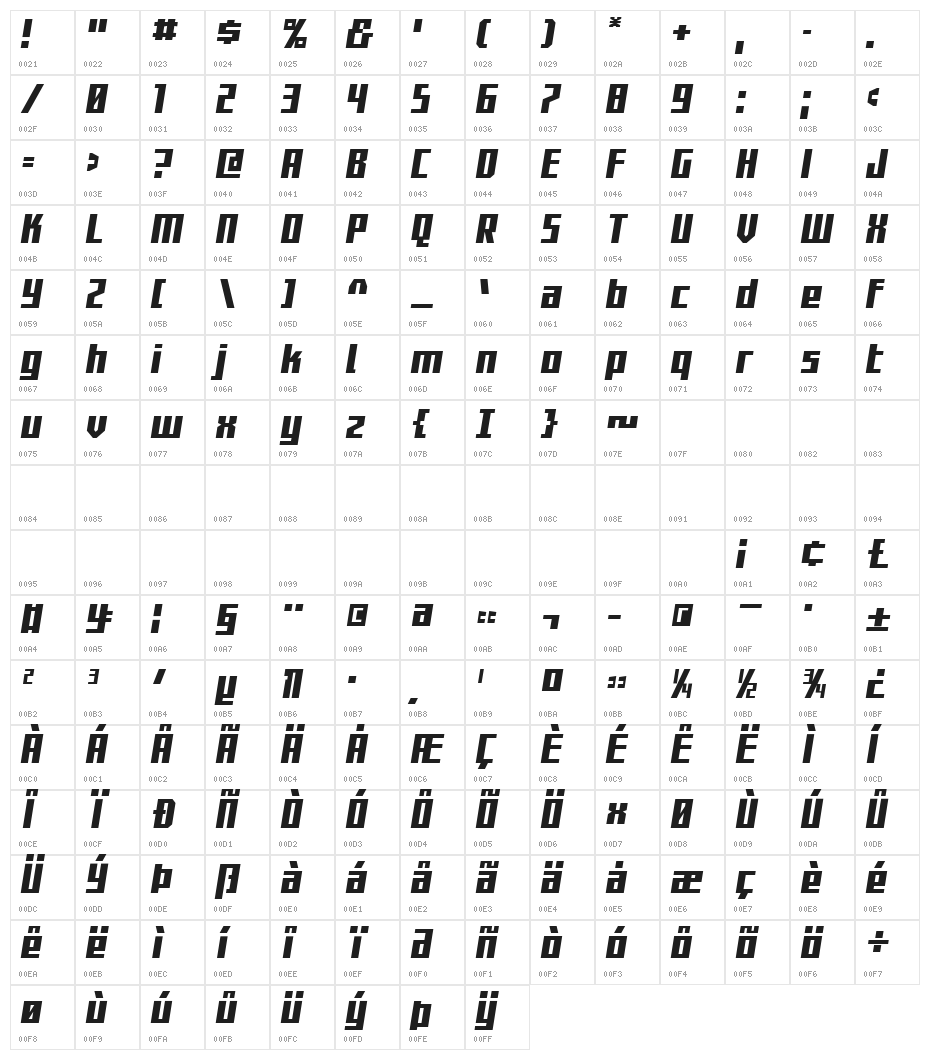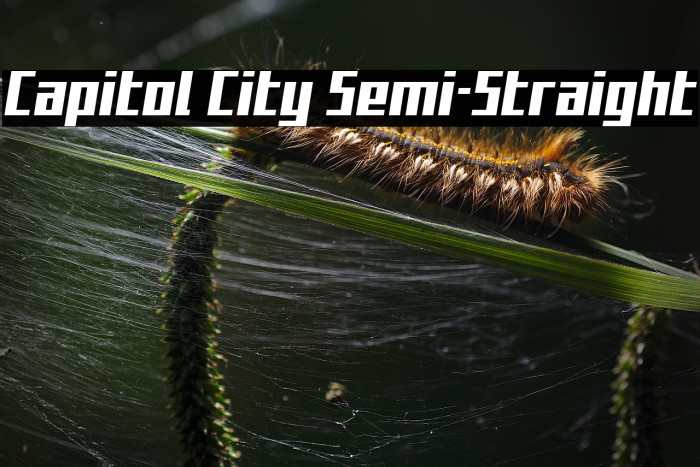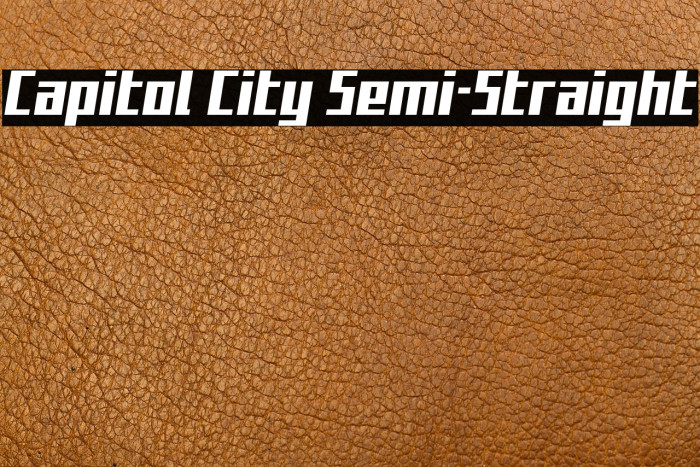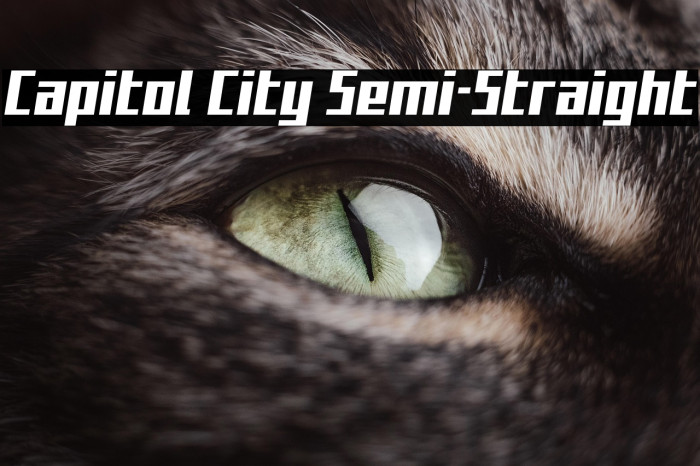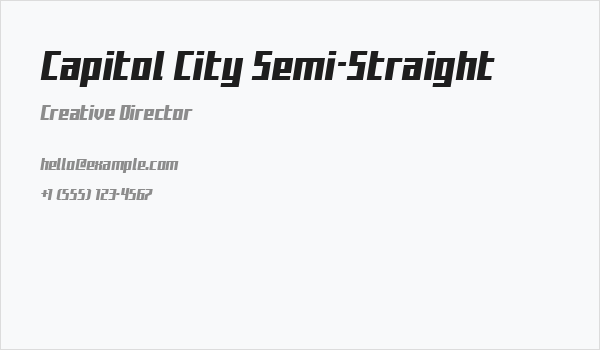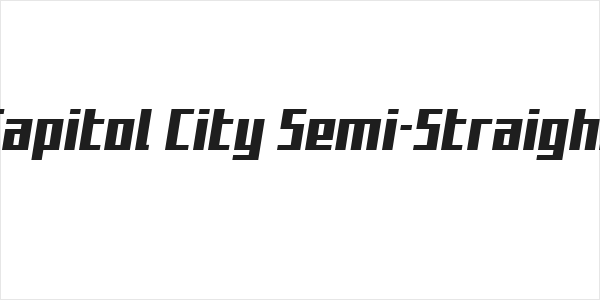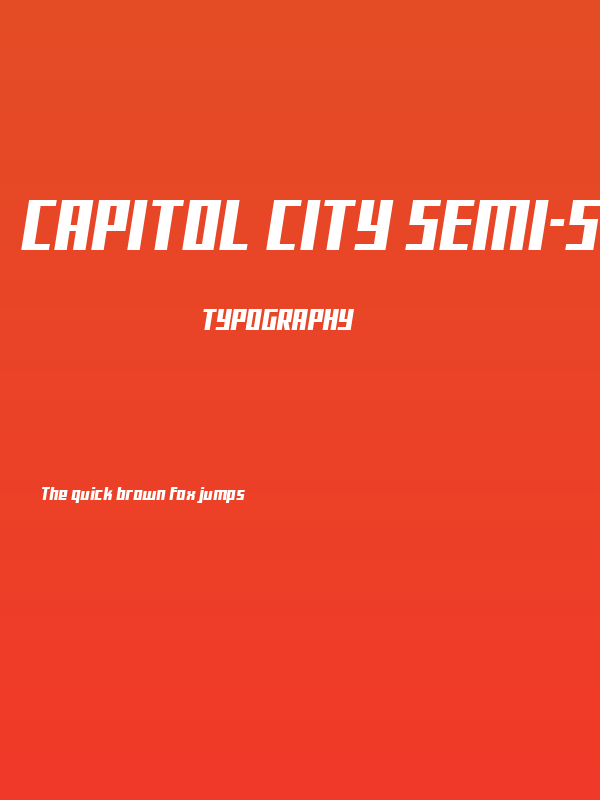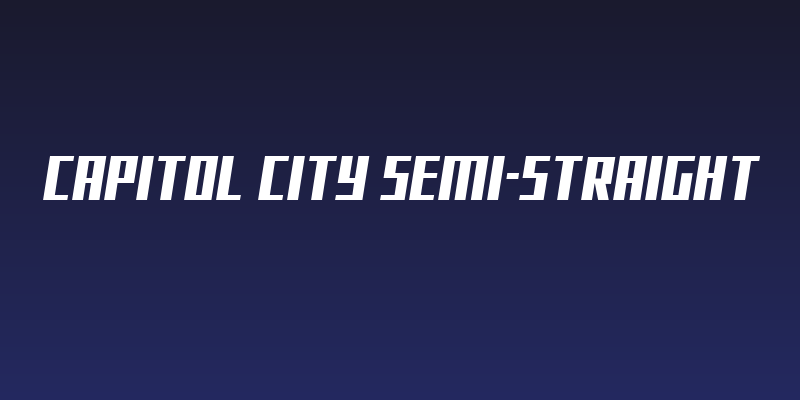
Capitol City Semi-Straight Font
Capitol City Semi-Straight Description
This font features a bold and angular design, characterized by its sharp edges and geometric forms. The uppercase letters are tall and slightly condensed, giving a strong and impactful appearance. The lowercase letters maintain a similar angular style, ensuring consistency throughout the typeface. Numbers and special characters are designed with the same boldness and angularity, making them stand out. The overall style is modern and assertive, suitable for attention-grabbing designs.